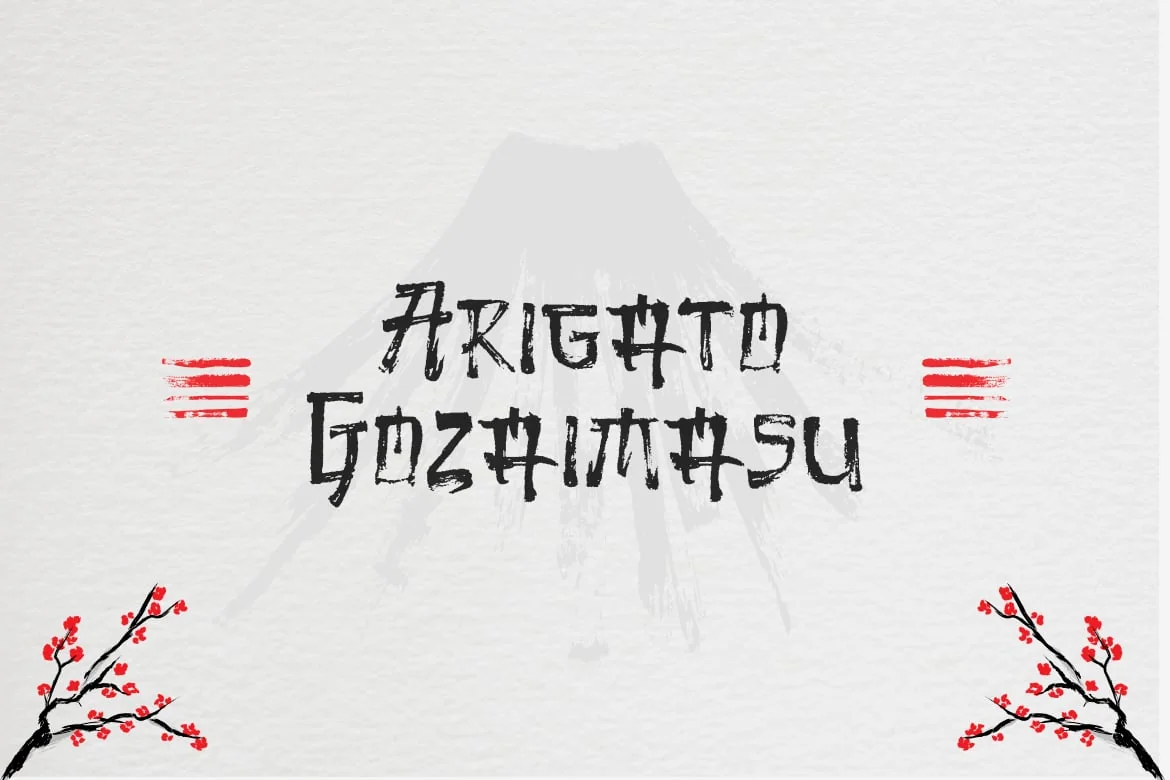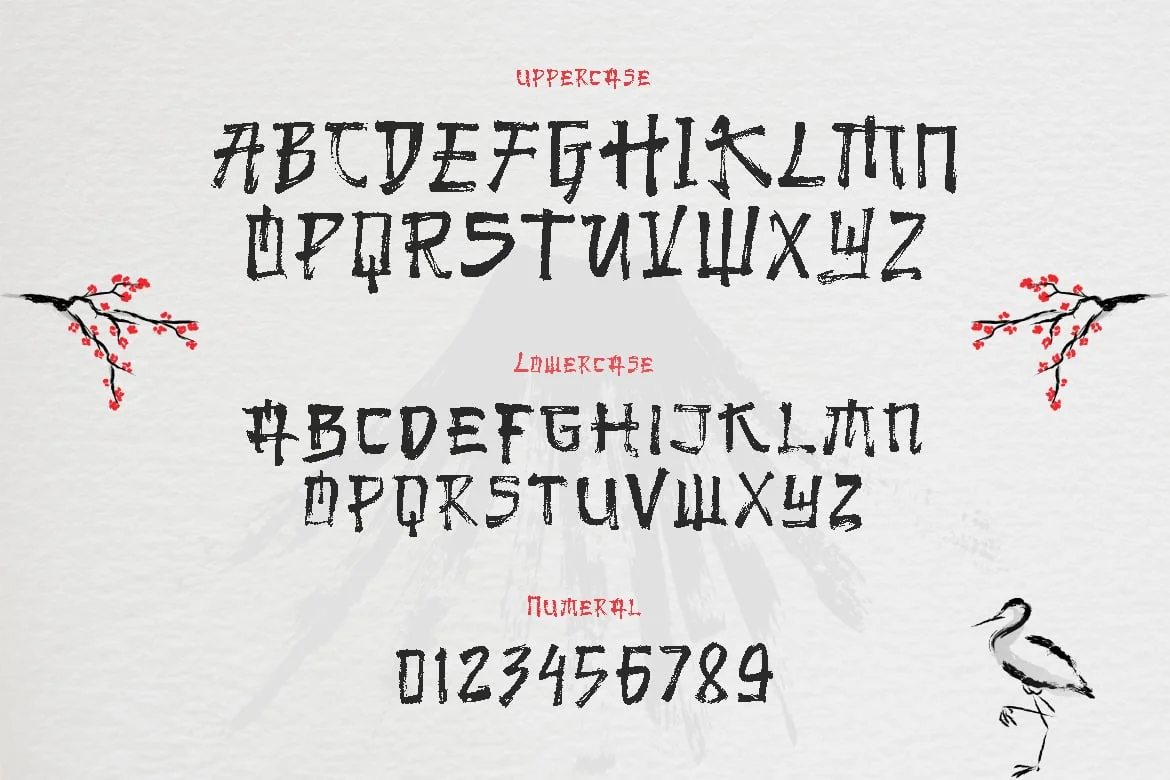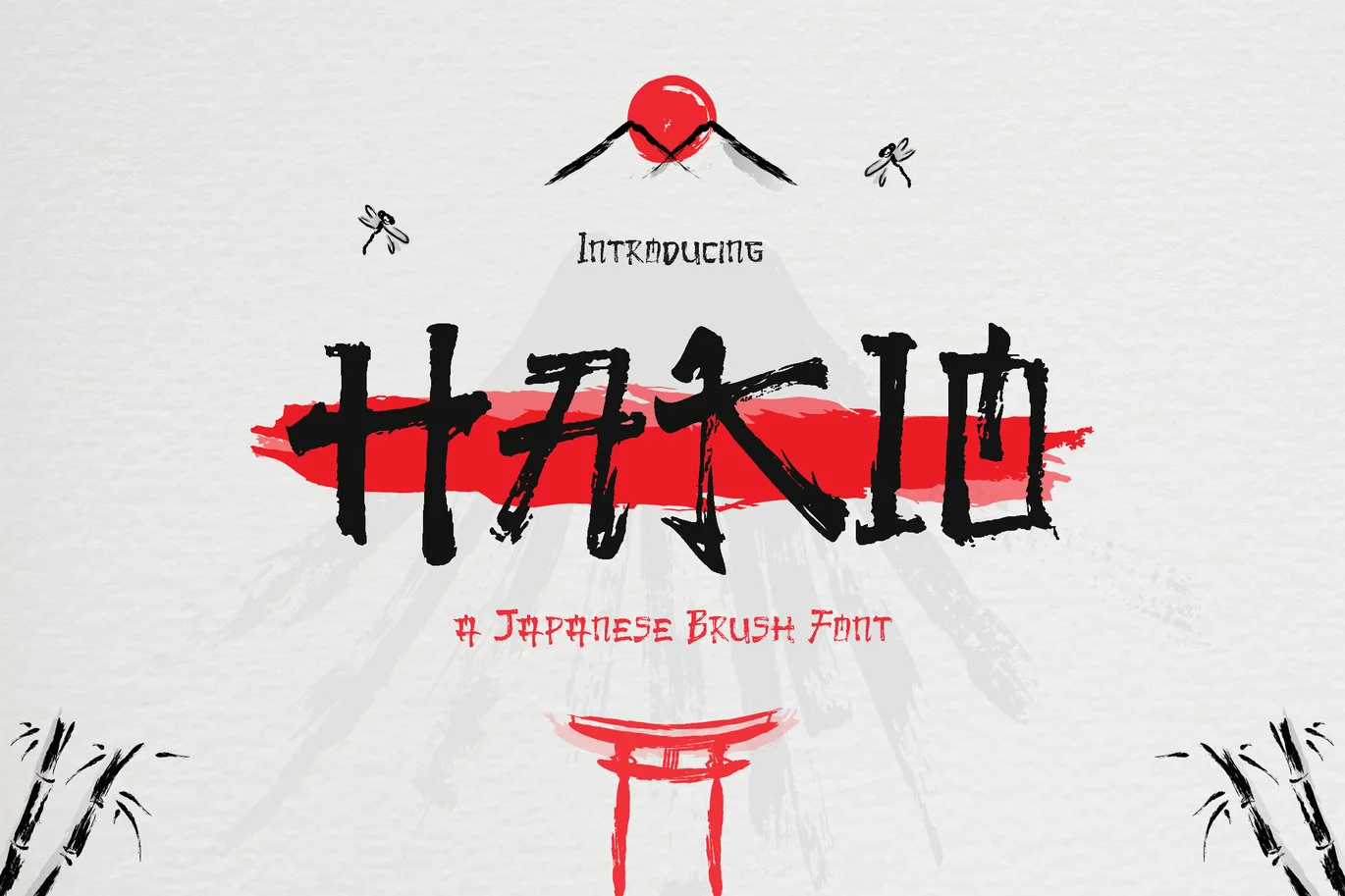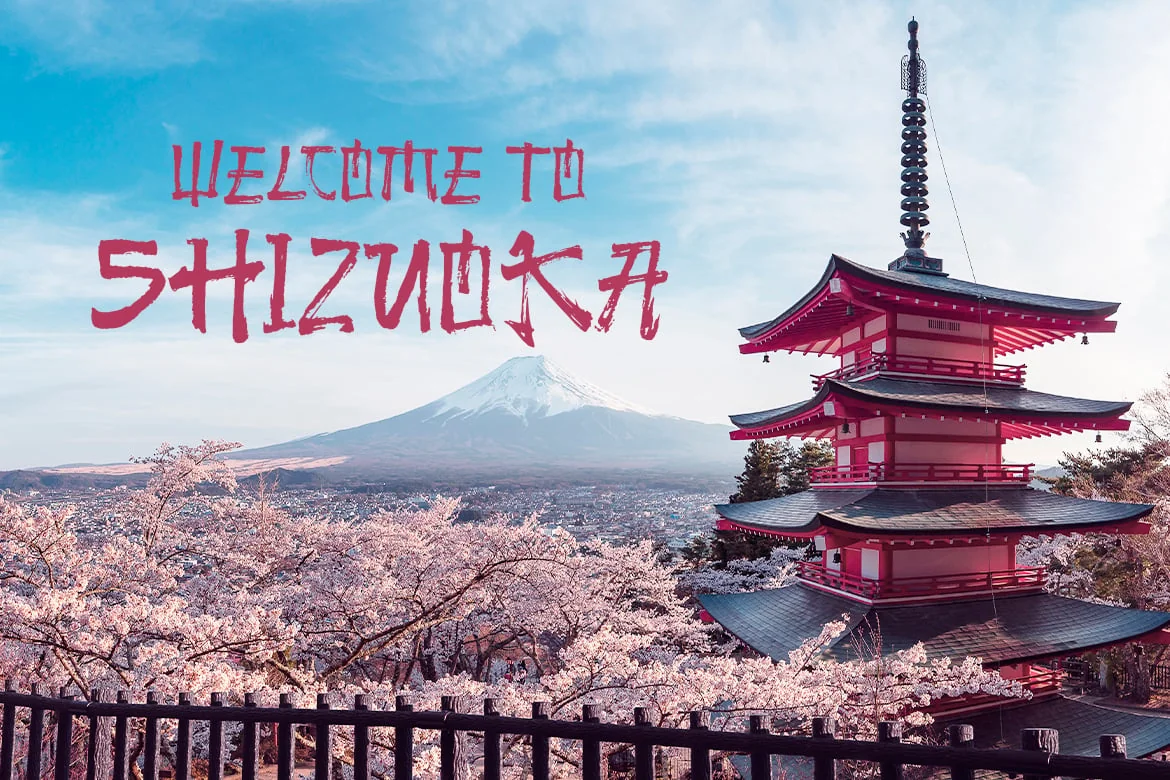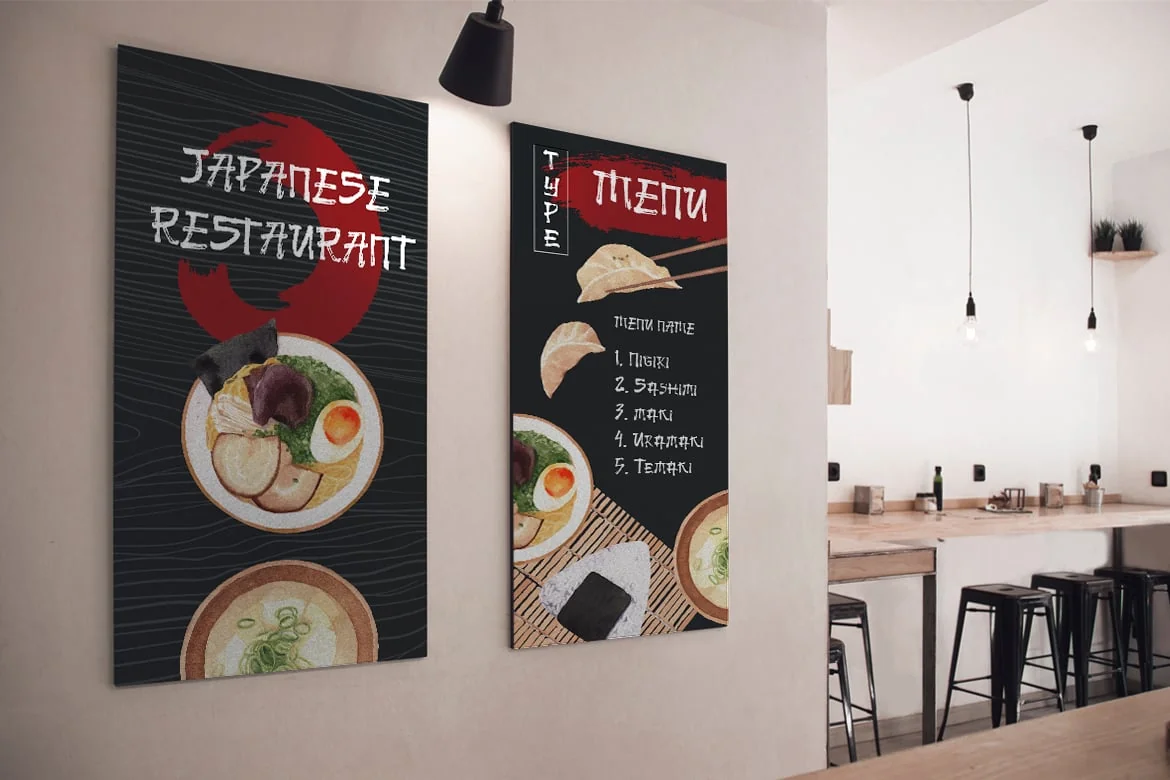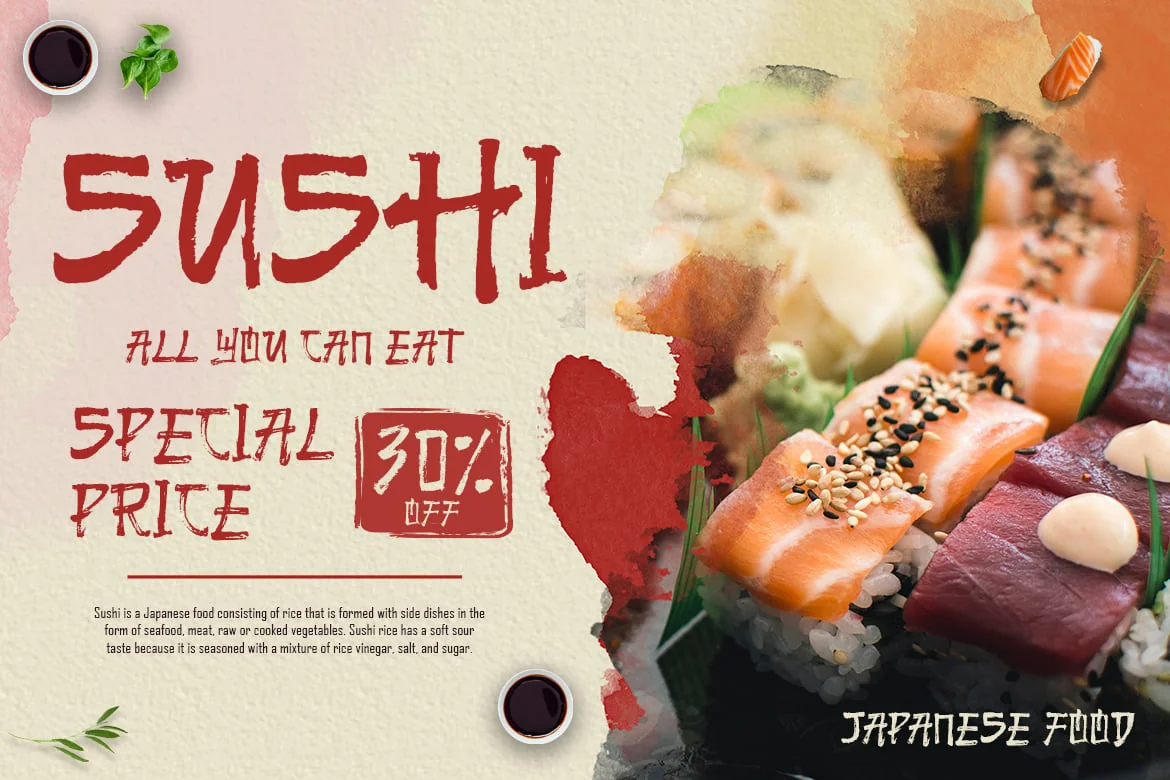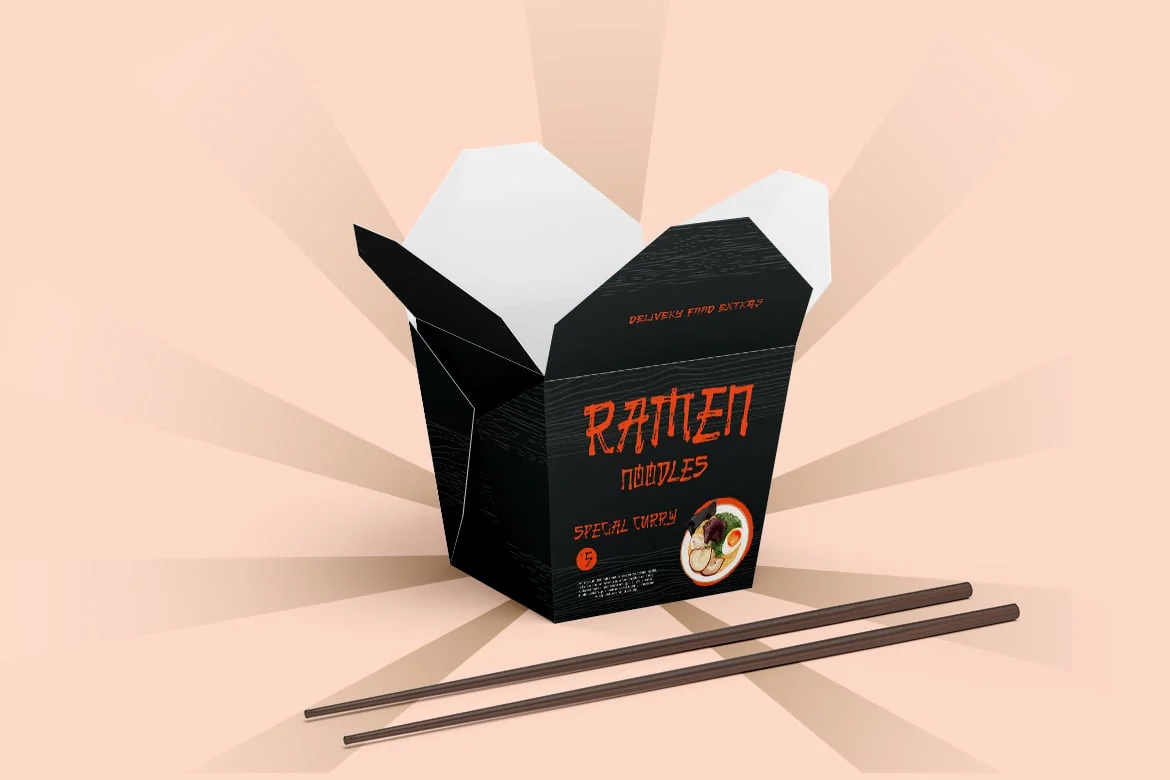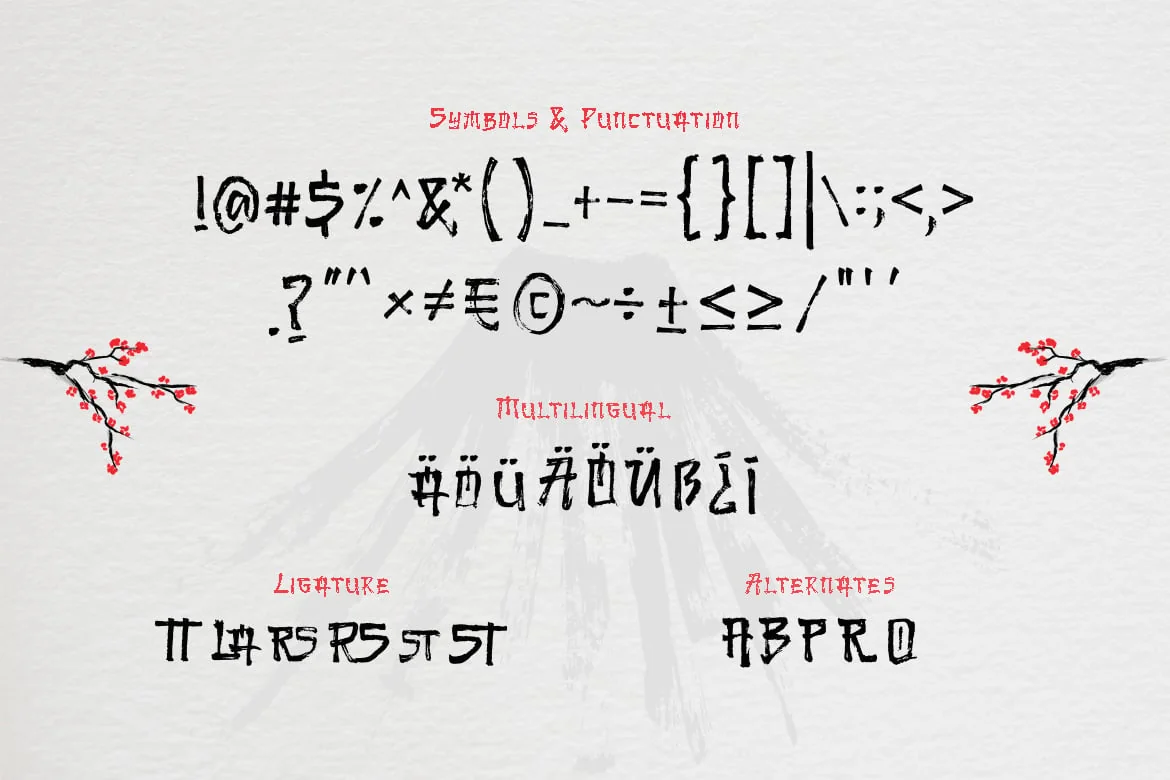
Hakio – Japanese Brush Font
A Japanese brush font that is carefully hand-drawn to try and emulate Japan’s rich history that is filled with passion, tradition, and art.
Reminisce the Golden Age of Japan through this script typeface designed to add a magnificent look and feel to almost anything. Inspired by the broad syllabary of katakana, hiragana, and kanji all mixed in one to create an admirable typeface for everyone.
One of the fundamental tenets of painting or writing in the artistic traditions of Japan greatly represents its strong honor and pride. An unfazed brush font that’s available for all across the globe.
This font is perfect for impressive branding, stunning design, captivating magazine design or practically anything you can think of!